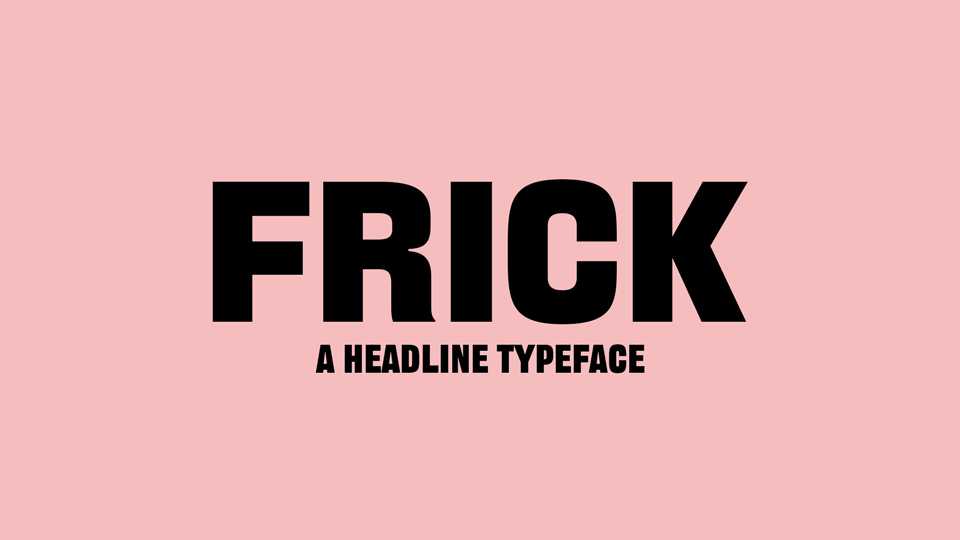
Download Frick font, a bold headline typeface with impact and power. Drawn on the unceded lands of the Wurundjeri people of the Kulin Nation.
Designer: Dennis Grauel